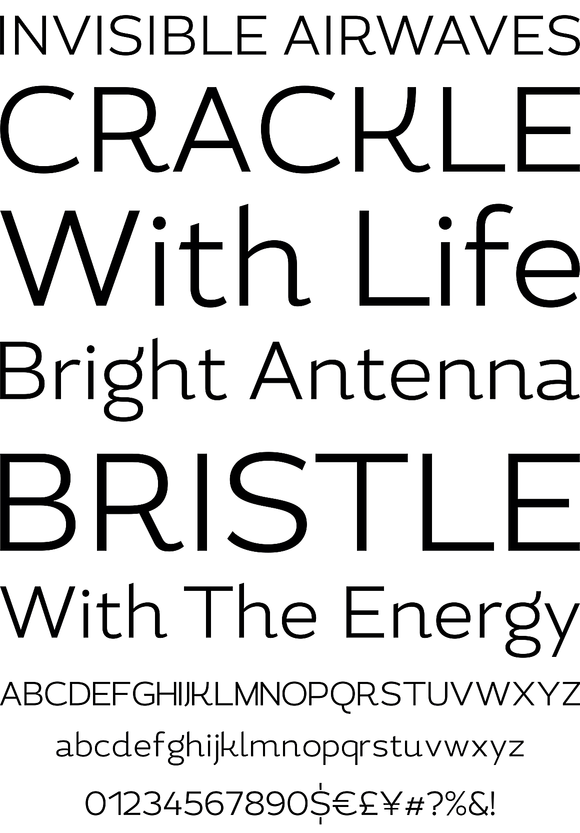
Magallanes Essential
Magallanes Essential a contemporary neo-humanist sans serif font designed by Daniel Hernández. Its strokes and terminals are related to the calligraphic strokes from humanist typefaces. Every weight comes with alternative glyphs for a more dynamic use. Magallanes is the perfect titling font to complement text faces in magazines, logotypes, etc.